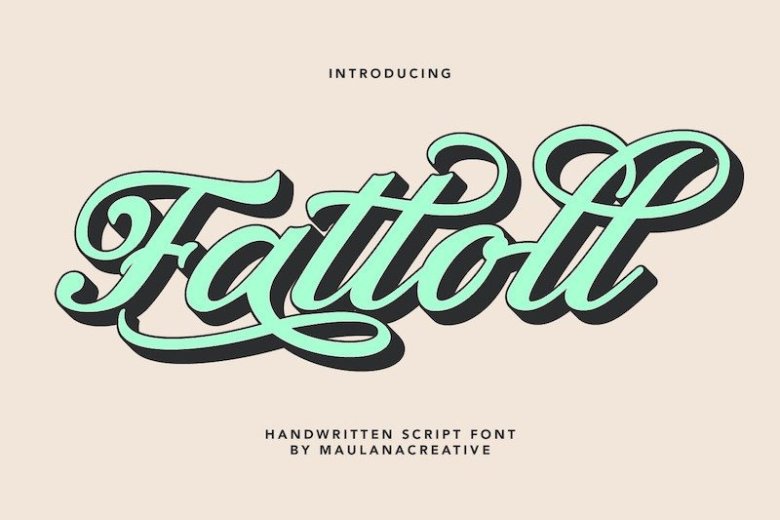
Fattoll Font
Fattoll Script Font is an elegant script typeface with many cursive alternative glyphs and swashes. It’s designed and shared by Maulana Creative. This font is perfectly suited to stationery, logos, branding, poster, wedding and much more. Make your projects stand out even more with Fattoll!